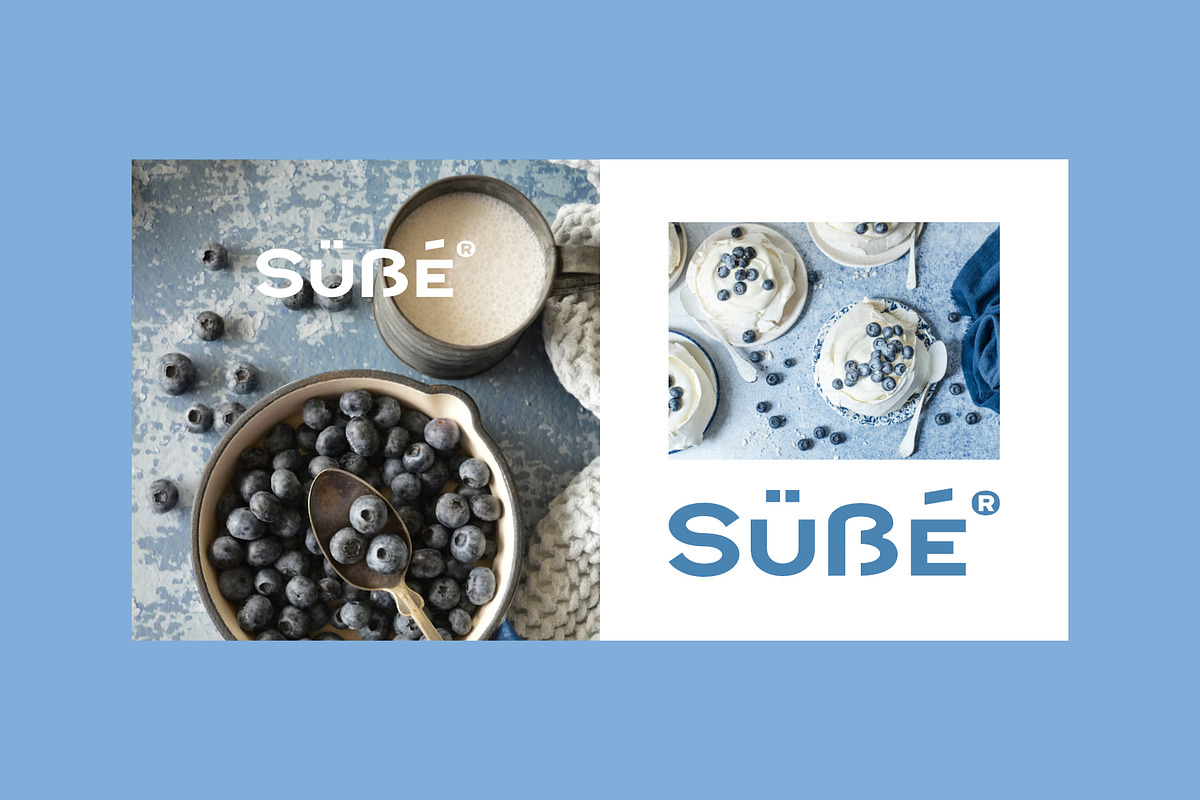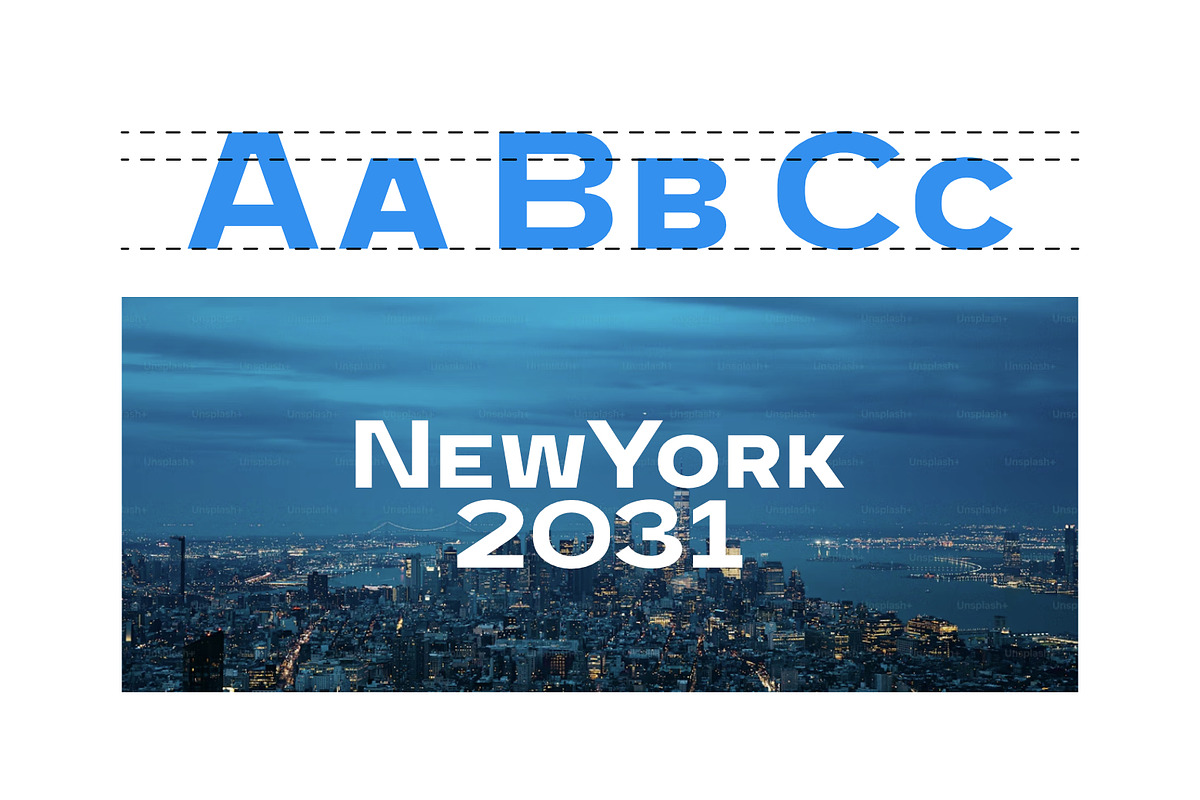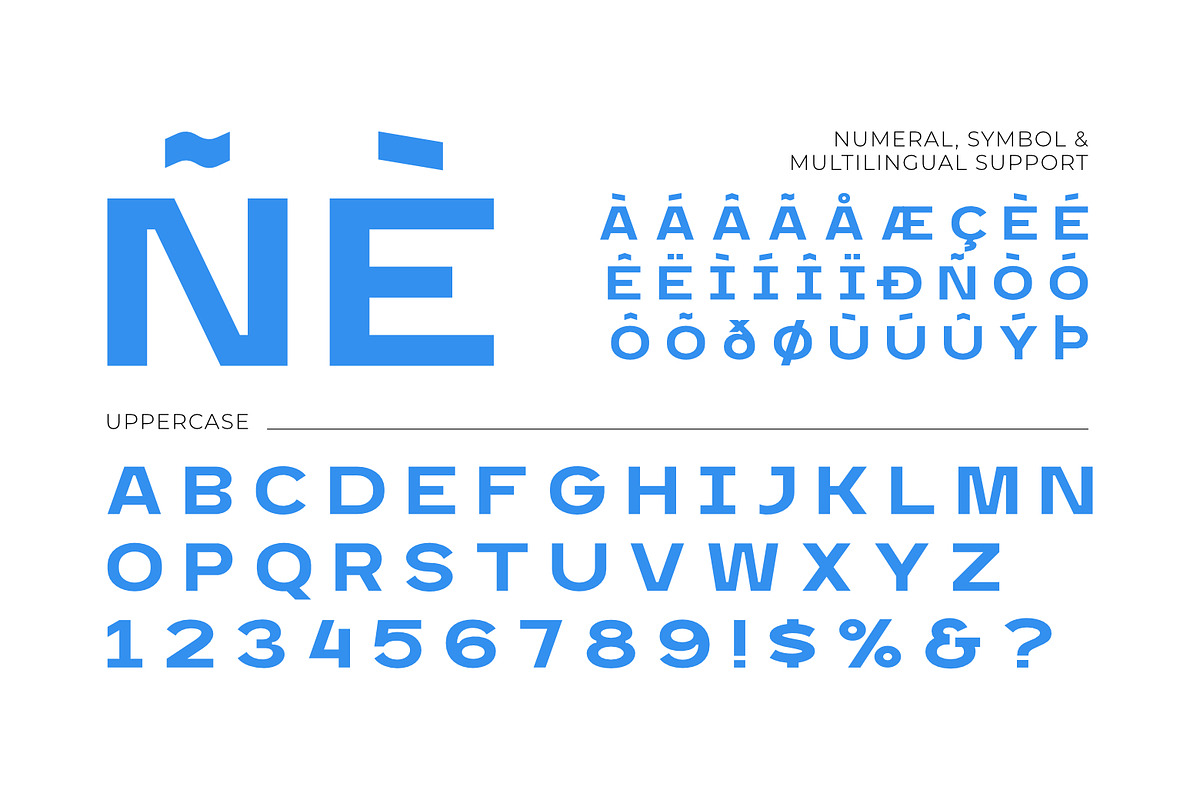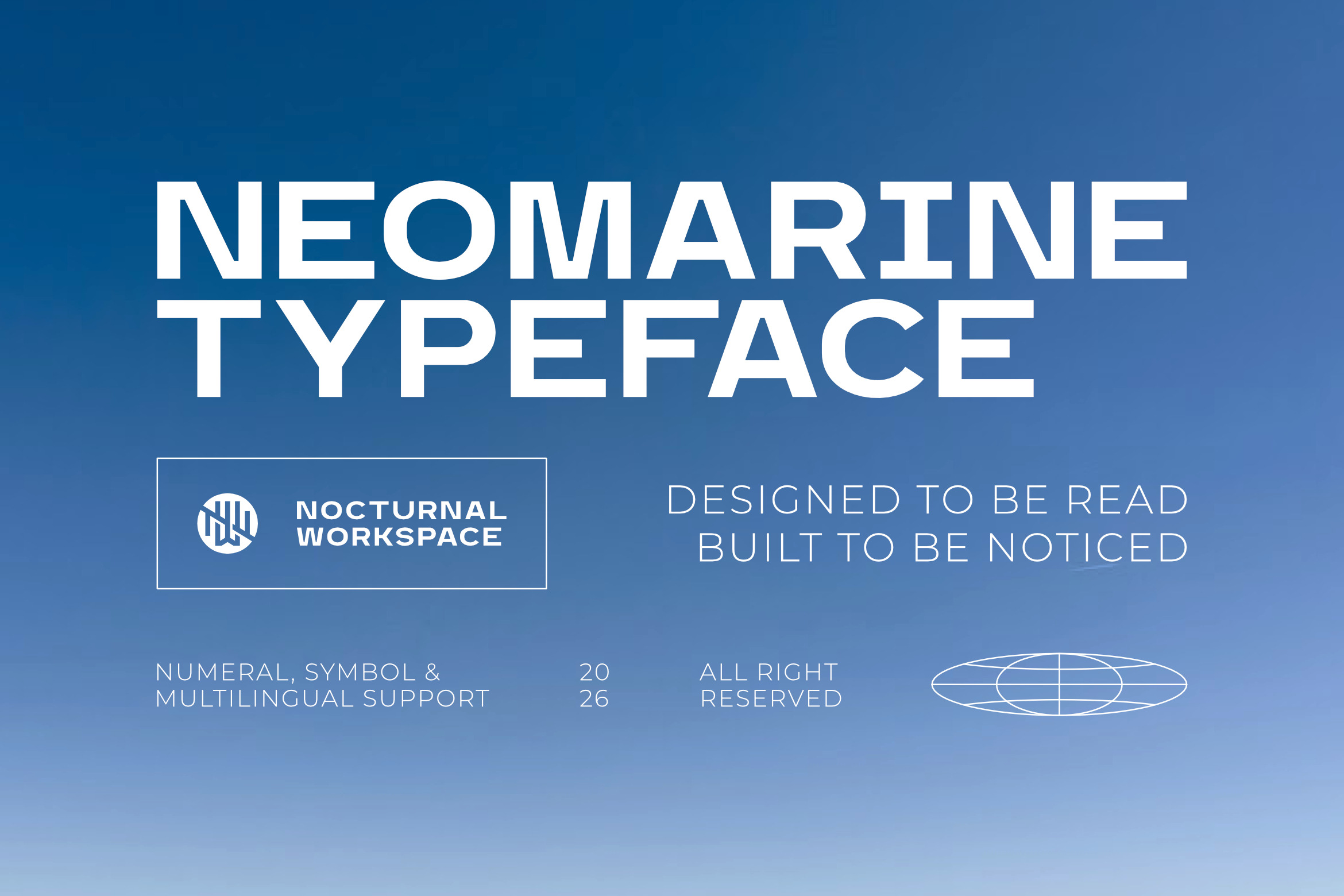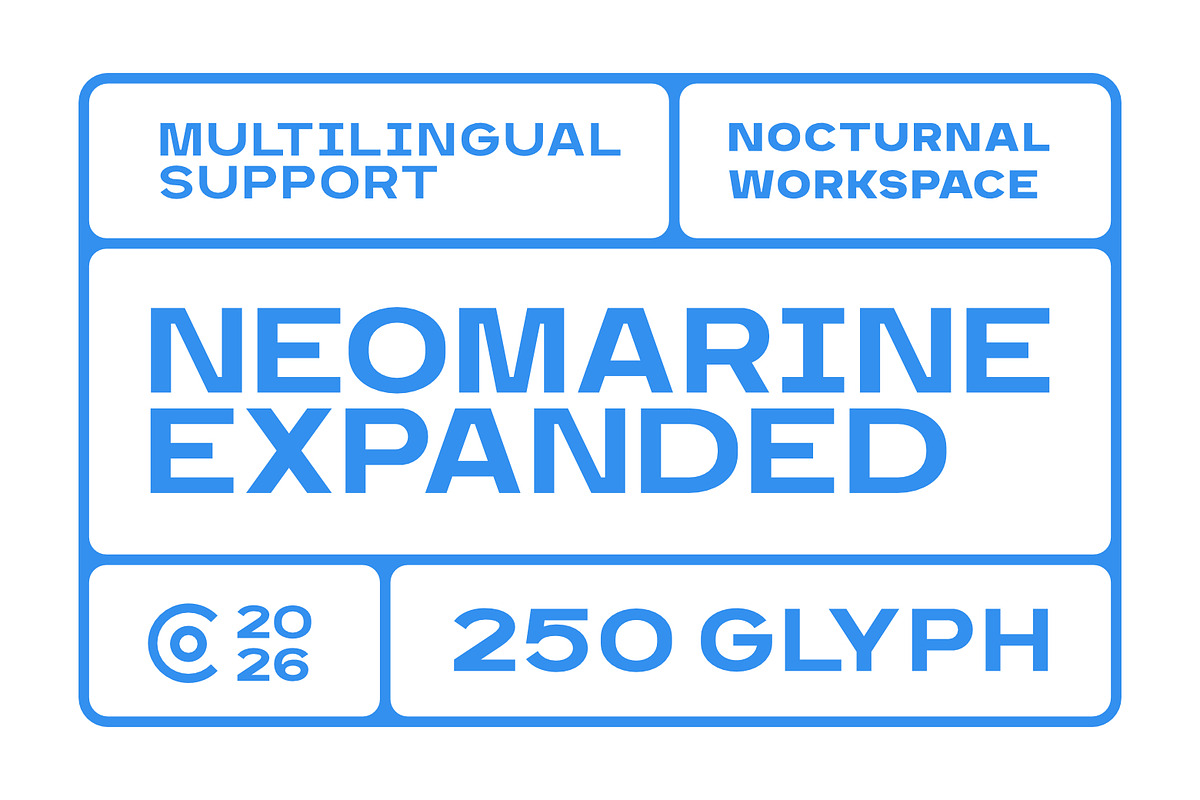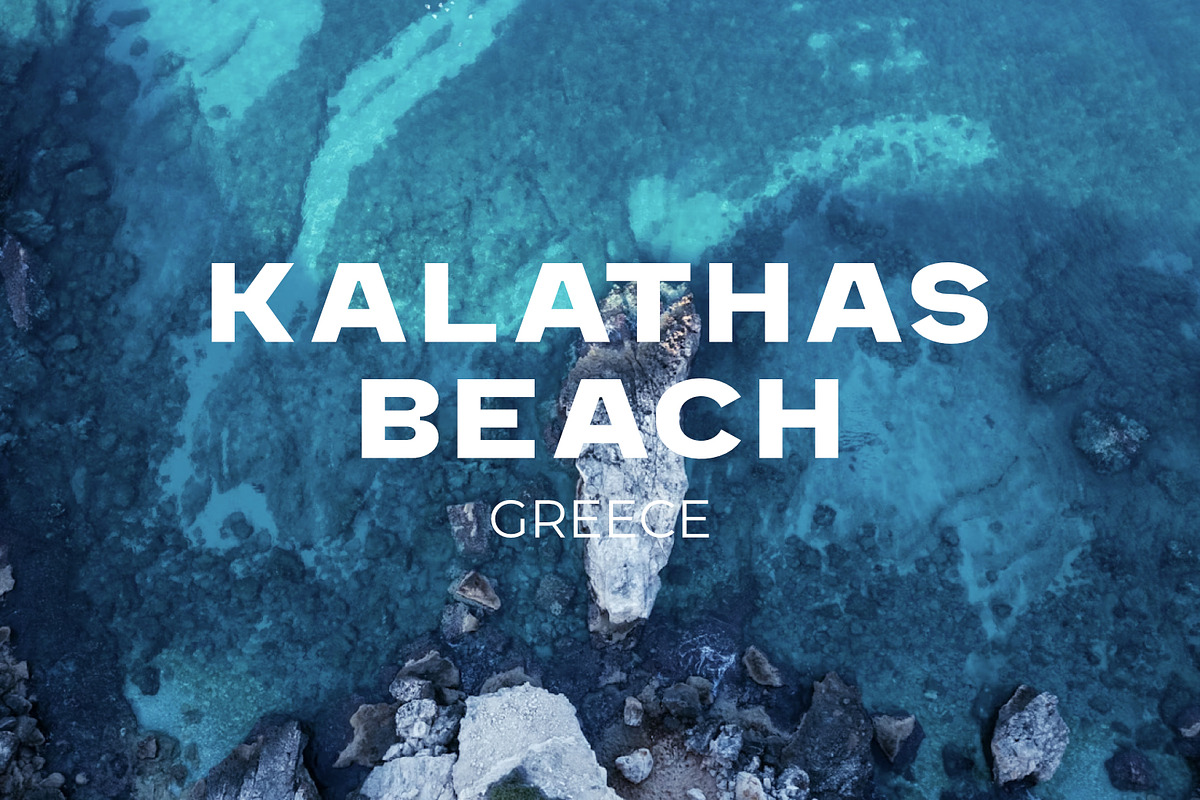
Neomarine - Bold Branding Typeface
Neomarine – A Bold Statement of Modern Geometry Neomarine is a contemporary sans-serif typeface designed to bridge the gap between high-tech precision and impactful visual communication. With its wide proportions and geometric foundation, this font is engineered for those who want their message not just to be read, but to be felt.
Built with clean lines and a sturdy structure, Neomarine excels in environments that demand authority and clarity. Whether you are crafting a cutting-edge corporate identity, designing a futuristic sports brand, or looking for the perfect headline for an automotive magazine, this typeface provides the versatility and professional polish your project deserves.
Bold & Wide Aesthetic: Optimized for maximum visibility in headlines and logos.
Geometric Precision: Perfectly balanced characters for a clean, architectural feel.
Multilingual Support: Ready for global reach with support for various Latin-based languages.
Comprehensive Character Set: Includes numerals, essential symbols, and punctuation.
Perfect for: Logotypes, Tech Branding, Industrial Design, Sports Graphics, Posters, Website Headers, and any project that requires a "Designed to be Read, Built to be Noticed" approach.